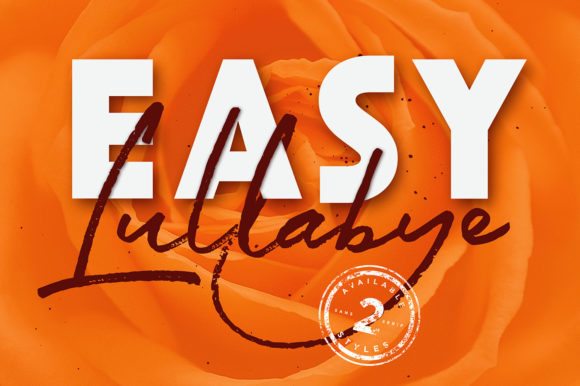
Introducing Easy Lullabye Font: The Ultimate Duo for Crafty Designs
Are you tired of using the same old fonts for your crafty projects? Look no further than Easy Lullabye Font, a unique and versatile duo font that is sure to take your designs to the next level. This exciting new font combination includes a sans serif and script font, offering a fresh and original look that will appeal to a wide range of crafty ideas.
What is Easy Lullabye Font?
Easy Lullabye Font is a specially designed font duo that consists of two complementary fonts: a sans serif font and a script font. The sans serif font is clean and modern, while the script font adds a touch of elegance and sophistication. Together, they form a powerful combination that can be used for a variety of design projects, from letterheads and titles to stationery and more.
Key Features of Easy Lullabye Font
- Unique and Versatile: Easy Lullabye Font is a one-of-a-kind font duo that offers a fresh and original look for your designs.
- Sans Serif and Script: The font duo includes both a sans serif and script font, providing you with flexibility and variety.
- Crafty Ideas: Easy Lullabye Font is perfect for a wide range of crafty ideas, from letterheads and titles to stationery and more.
- Elegant and Modern: The font combination is both elegant and modern, making it perfect for designs that require a touch of sophistication.
Uses for Easy Lullabye Font
Easy Lullabye Font is a versatile font duo that can be used for a variety of design projects, including:
- Letterheads: Create professional-looking letterheads with the sans serif font, or add a touch of elegance with the script font.
- Titles: Use the font duo to create eye-catching titles for your blog posts, articles, or social media posts.
- Stationery: Design beautiful stationery, such as greeting cards, invitations, or thank-you cards, with the Easy Lullabye Font.
- Crafting: Use the font duo for your crafting projects, such as scrapbooking, journaling, or DIY signs.
Benefits of Using Easy Lullabye Font
By using Easy Lullabye Font, you can:
- Stand Out: Create unique and eye-catching designs that will set you apart from the crowd.
- Save Time: With a versatile font duo, you can create a wide range of designs without having to switch between multiple fonts.
- Enhance Your Brand: Use the font duo to create a consistent brand image across all your design projects.
Tips for Using Easy Lullabye Font
Here are some tips for getting the most out of Easy Lullabye Font:
- Mix and Match: Experiment with different combinations of the sans serif and script fonts to create unique and interesting designs.
- Play with Sizes: Use different font sizes to create visual interest and hierarchy in your designs.
- Add Texture: Add texture to your designs by using the font duo with other design elements, such as patterns or images.
Easy Lullabye Font is a unique and versatile duo font that is perfect for crafty designs. With its sans serif and script fonts, this font combination offers a fresh and original look that will appeal to a wide range of design projects. Whether you’re creating letterheads, titles, stationery, or crafting projects, Easy Lullabye Font is the perfect choice.